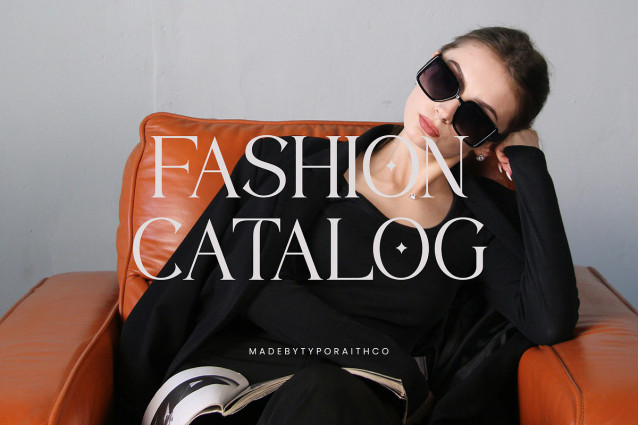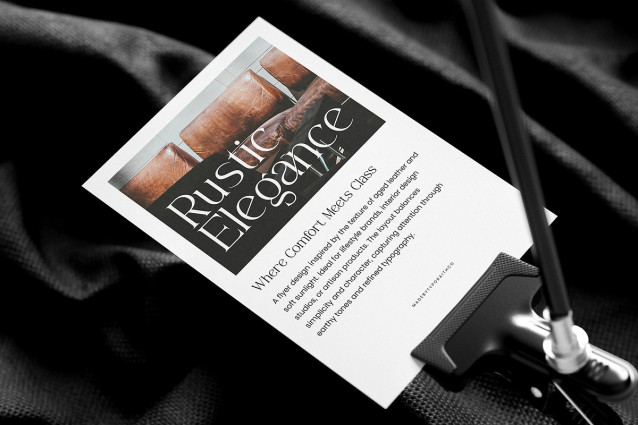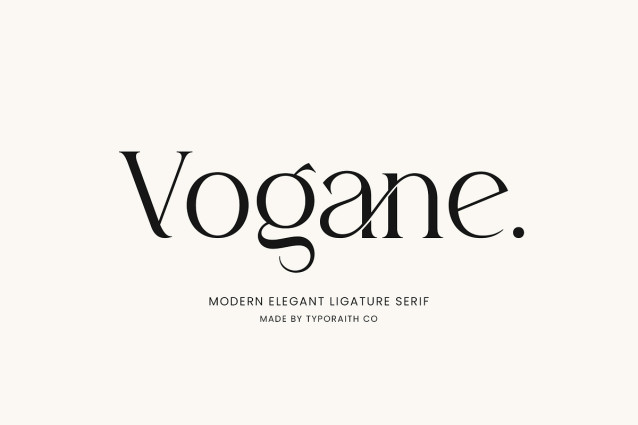
Vogane Font
Vogane Font is a modern elegant serif typeface with a touch of sophistication and style. Designed with refined curves and delicate details, Vogane brings a luxurious and timeless character to your design projects. This font includes stylish ligatures and alternate characters that make it perfect for branding, editorial design, logos, invitations, and high-end packaging.